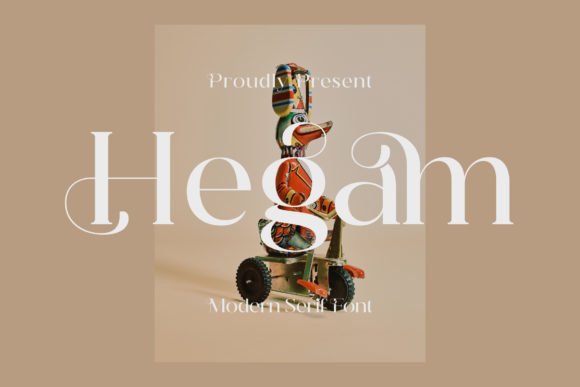
The Perfect Touch of Elegance: Hegam Font
There’s nothing quite like the feeling of bringing a design to life. The moment when every element falls into place, and your vision is finally realized. For designers, this moment is what makes all the hard work worth it. But sometimes, it’s the small details that can make all the difference. That’s where the Hegam Font comes in – a delicate and elegant serif font that adds a touch of sophistication to any creation.
With its PUA encoding, accessing all the glyphs and swashes is a breeze, allowing you to add the Hegam Font to your favorite projects with confidence. Whether you’re working on a logo, a brochure, or a website, this font is sure to elevate your design to the next level. Its versatility and charm make it a valuable asset for any designer looking to add a touch of elegance to their work.
Hegam Font Key Features
- Font Size: The font size is 1,200 glyphs, providing a wide range of characters for various languages.
- Unique Characteristics: Hegam Font features a unique blend of traditional and modern design elements, with intricate details and subtle nuances that set it apart from other fonts.
- Language Support: Hegam Font supports a wide range of languages, including Latin, Cyrillic, Greek, and many others, making it a versatile choice for global audiences.
Hegam Font Review
I recently had the chance to work with Hegam Font, and I have mixed feelings about it. On one hand, there are some aspects that I really like.
- Unique Design**: Hegam Font has a distinctive and quirky design that can add a lot of character to your projects.
- High-Quality Vectors**: The font files are well-constructed, and I didn’t encounter any issues with rendering or scaling.
- Good for Creative Projects**: If you’re working on a project that requires a non-traditional or artistic font, Hegam Font could be a great choice.
- Limited Character Set**: The font has a limited character set, which may not be suitable for projects that require a wide range of languages or special characters.
- Not Suitable for Body Text**: The font is not ideal for large blocks of body text, as it can be difficult to read and may cause fatigue.
- Not Suitable for Small Text**: Similarly, the font may not be the best choice for small text, as it can be difficult to read and may not be legible.
Overall, I think Hegam Font is a great choice for specific projects, but it may not be the best fit for every design need. With some careful consideration and planning, you can use this font effectively and create some amazing designs.
For the most out of Hegam font, use it for titles, headings, and short paragraphs where its unique aesthetic can shine. It’s particularly suitable for creative projects, such as graphic design, branding, and advertising.
Alternatives to Hegam Font for Designers
Playfair Display is a luxurious, high-end serif font ideal for titles, headings, and other prominent text elements. It’s perfect for creating a sense of sophistication and elegance in designs.
Comparison to Hegam Font: While Hegam Font has a more subtle, classic feel, Playfair Display is bolder and more ornate. Use Playfair Display when you want to add a touch of luxury and grandeur to your design.
Montserrat is a modern sans-serif font designed for urban environments. It’s highly legible and versatile, making it suitable for a wide range of design applications, from body text to headlines.
Comparison to Hegam Font: Montserrat has a more geometric, urban feel compared to Hegam Font’s classic, elegant style. Use Montserrat when you want a clean, modern look that’s easy to read.
Merriweather is a classic serif font with a warm, traditional feel. It’s perfect for body text, as well as titles and headings that require a sense of history and sophistication.